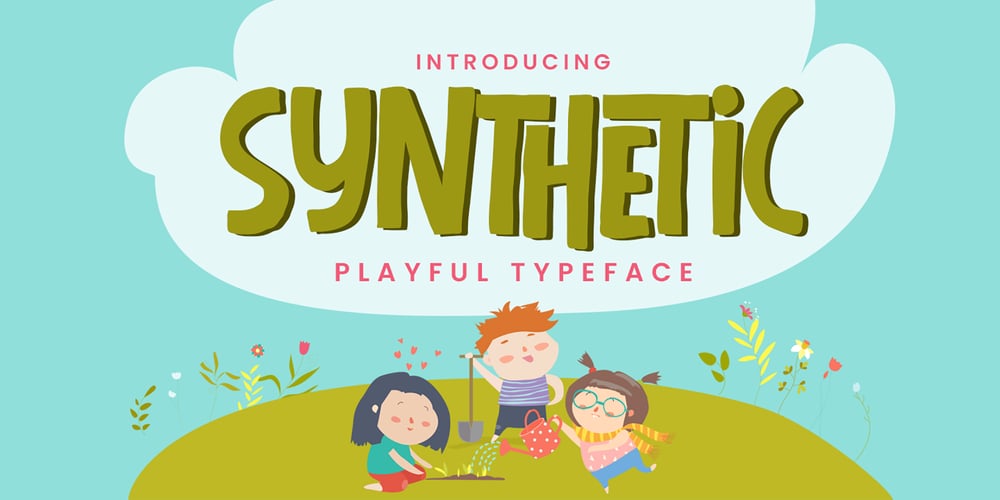
Synthetic
Synthetic font
Synthetic Font Family was designed by Abdul Malik Wisnu, Anang Fibriyanto and published by Gassstype. Synthetic contains 1 styles and family package options. Hello Everyone, Introduce our new collection Syhthetic – Playful Typeface Font Fun All Caps Font and display for posters, packaging, branding, logotype and more, for your design needs, making your designs more modern and professional for kids,unique and sweety.